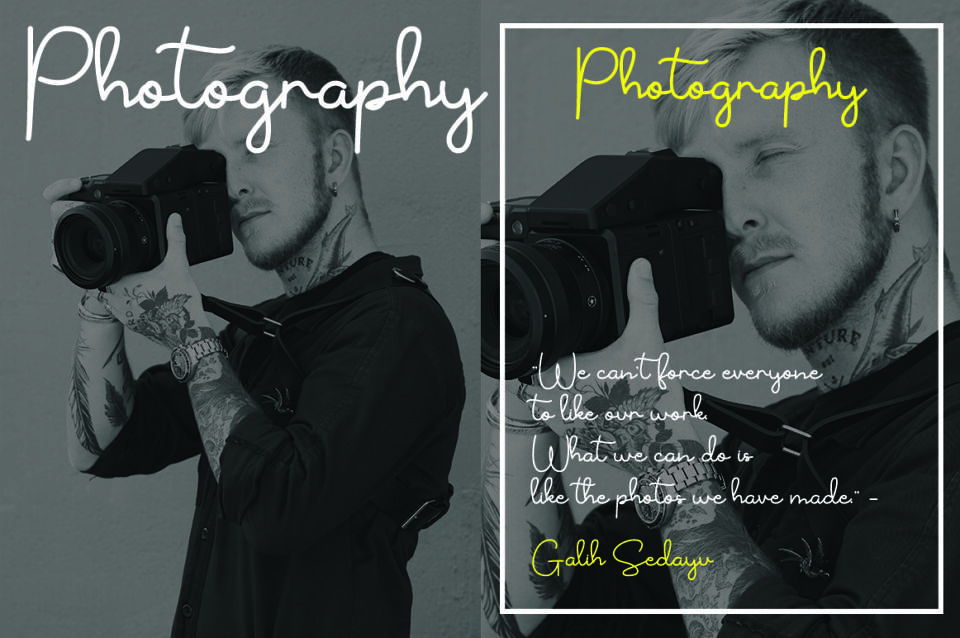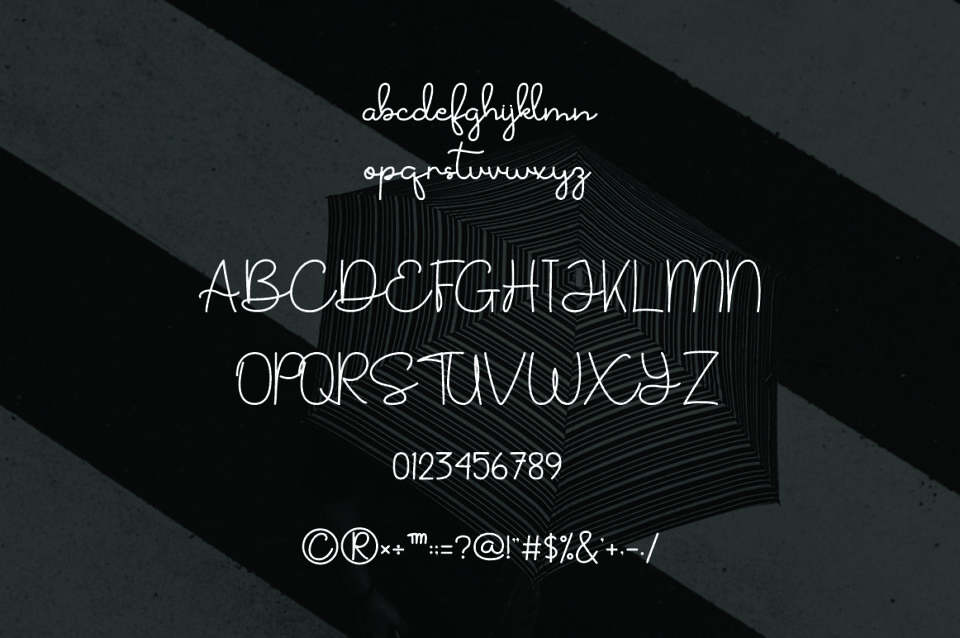
The Street is an elegant and flowing handwritten font. It is PUA encoded which means you can access all of the glyphs and swashes with ease!
It features a varying baseline, smooth lines, gorgeous glyphs and stunning alternates. It maintains its classy calligraphic influences while feeling contemporary and fresh.